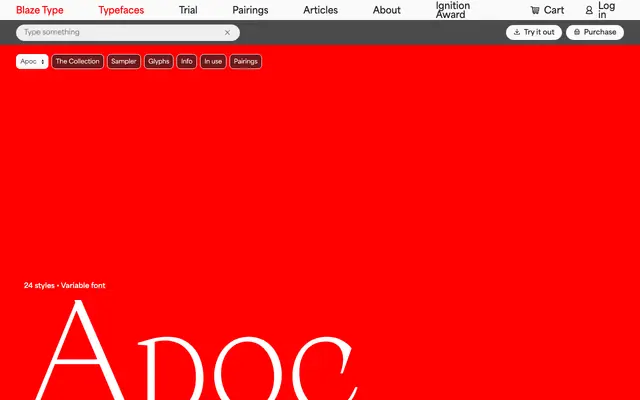
Apoc
Blaze Type · Matthieu Salvaggio · 2018
A sharp, high-contrast display family from Blaze Type, released in 2018 and updated twice since, with two subfamilies across 24 styles including a variable file.
Designed by Matthieu Salvaggio with Cyrillic extensions by Ilya Ruderman and Yury Ostromentsky, the family splits into Normal and Revelations subfamilies, each running six weights from Hairline to Dark with matching italics. The pointed terminals and expressive stroke contrast make it well suited to exhibition posters, album artwork and display headlines where strong typographic presence is required. Coverage extends to Latin, Cyrillic and Greek, and the family ships as a variable font alongside individual static files.
A deliberately expressive, sharp-edged display family with pointed terminals and high contrast detailing; designed primarily for headlines and poster use rather than extended text.